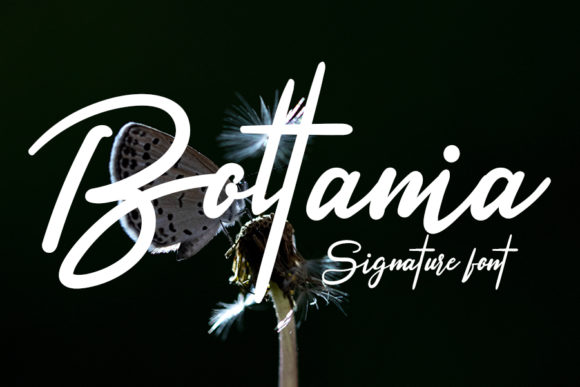
The Designer’s Delight: Unlocking the Beauty of Boltania Font
I’ll never forget the moment I stumbled upon Boltania Font while working on a luxury branding project. My client wanted a font that exuded elegance and sophistication, but I was struggling to find the perfect fit. That’s when I discovered Boltania, a beautiful light handwritten font that added a spark of luxury to my design. In this article, I’ll share my experience with Boltania, its unique features, and how to make the most of it in your design projects.
- 💫 Unique and elegant handwritten feel
- ✅ Easy to read, even in smaller sizes
- 🎨 Highly versatile, suitable for various design projects
- 🔥 Adds a touch of luxury to any design
- ⚠️ Limited use in very formal or traditional designs
- 🤔 May not be the best choice for body text due to its light weight
The Story Behind Boltania: A Designer’s Inspiration
According to its creators, Boltania was inspired by the beauty of handwritten letters and the desire to create a font that would add a touch of elegance to any design. The font’s unique feel and stunning impact make it a popular choice among designers and crafters.
| Font Name | Boltania Font |
| Author | FL Space |
Q: What type of designs is Boltania best suited for?
A: Boltania is highly versatile and can be used in various design projects, including luxury branding, wedding designs, and creative projects.
Q: Is Boltania a difficult font to read?
A: No, Boltania is designed to be easy to read, even in smaller sizes, making it suitable for a wide range of design applications.
Q: Can I use Boltania in combination with other fonts?
A: Yes, Boltania can be paired with other fonts to create a unique and visually appealing design. Experiment with different font combinations to find the perfect fit for your project.